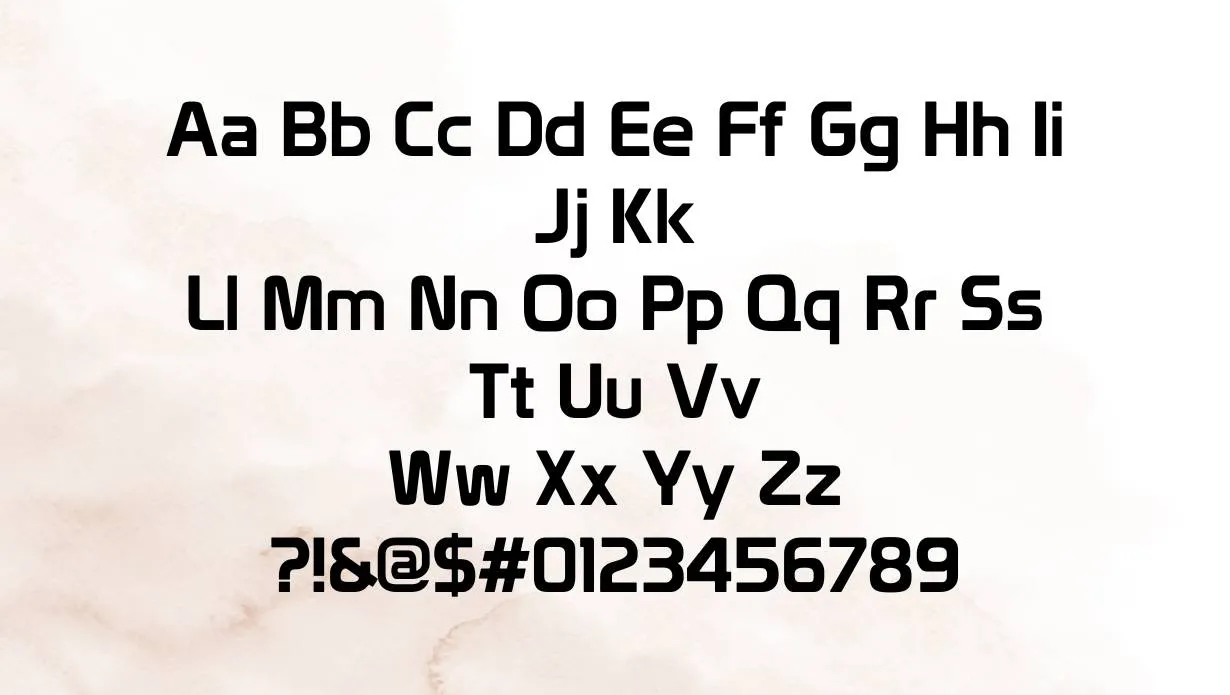
The Prototype font is a visionary typeface renowned for its futuristic and high-tech appeal. It’s a prevalent choice in sci-fi-themed designs, posters, or any project aiming for a cutting-edge and modern look.
| Name | Prototype Font |
| Designer | Justin Callaghan |
| Style | Techno |
Its sleek and innovative style, characterized by sharp edges and a forward-looking aesthetic, adds a sense of technological advancement to the text.
This font speaks to the future, offering designs a cutting-edge and visionary vibe, making it a favored option for those seeking a modern and progressive visual identity.